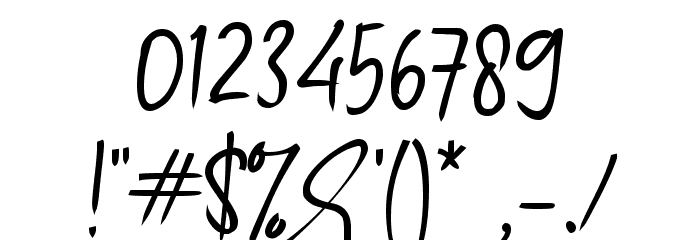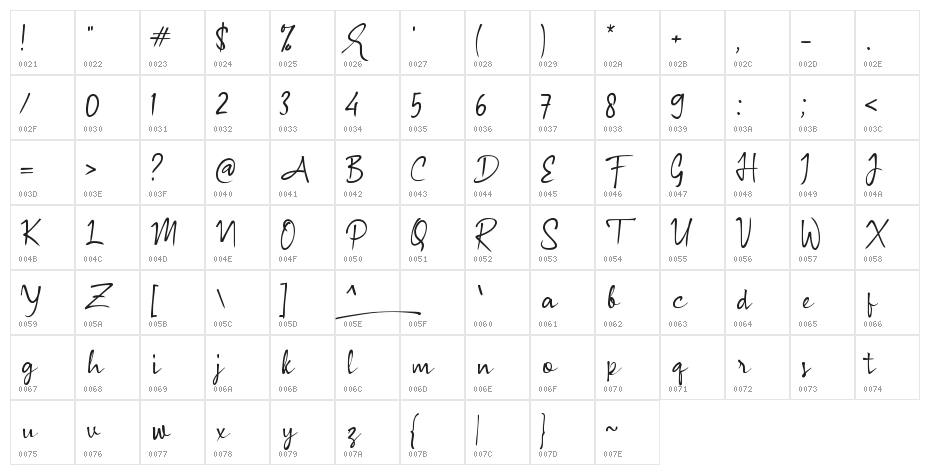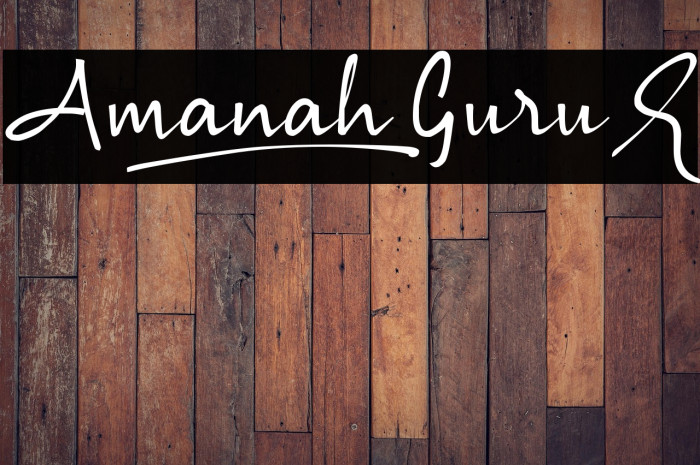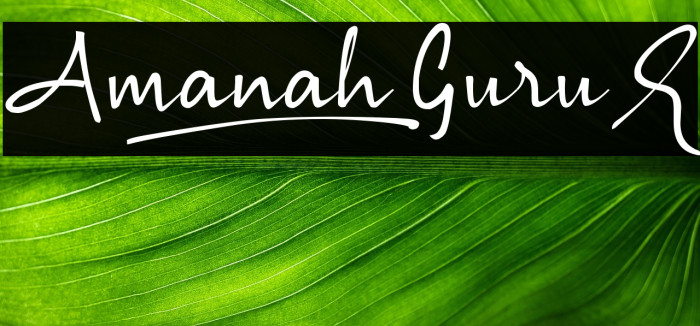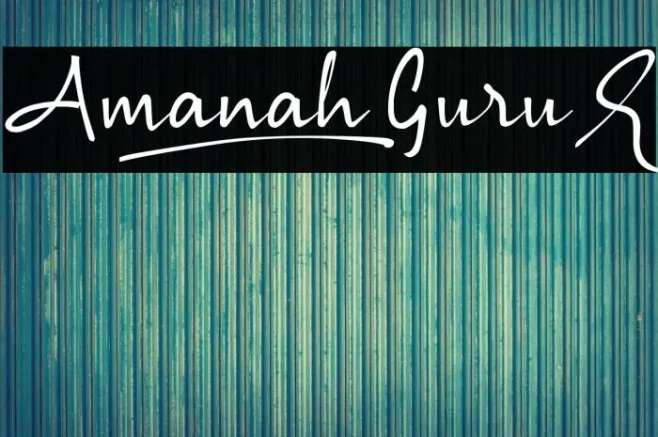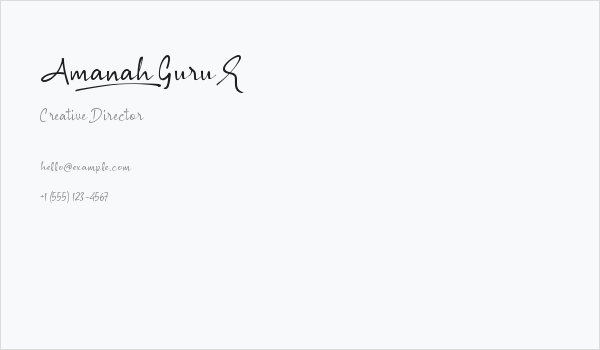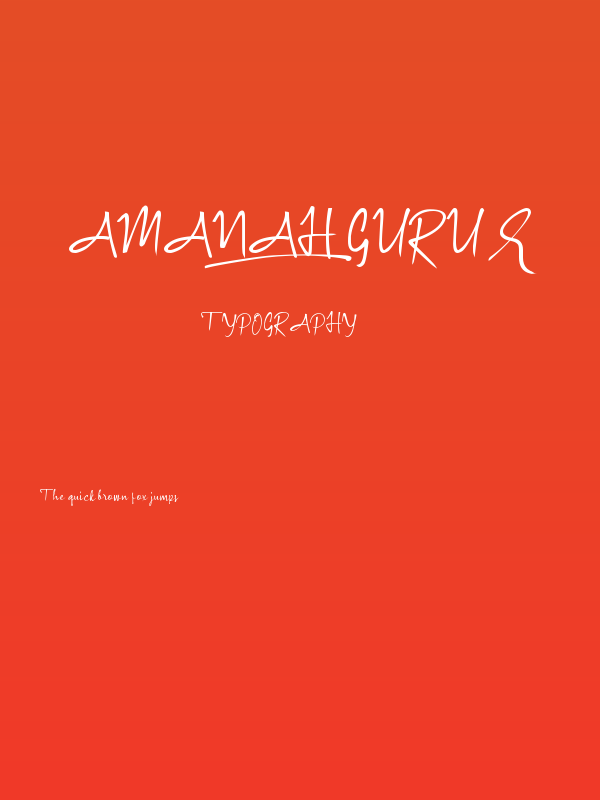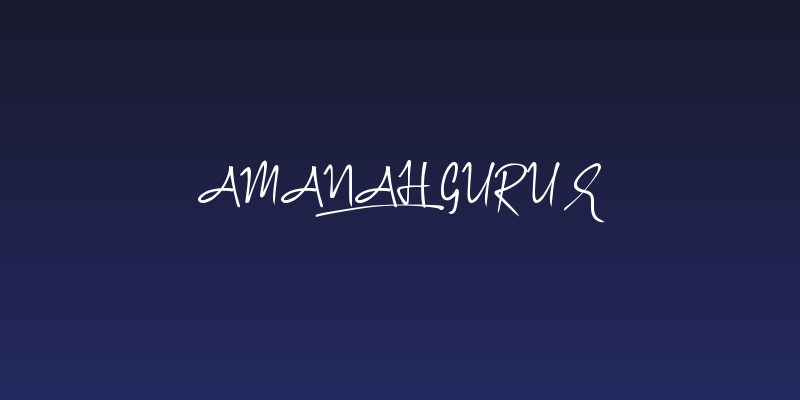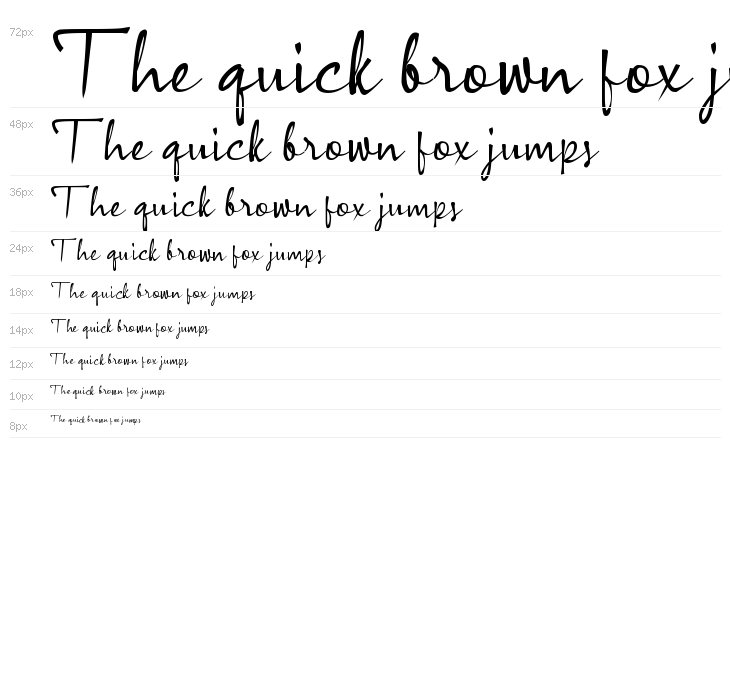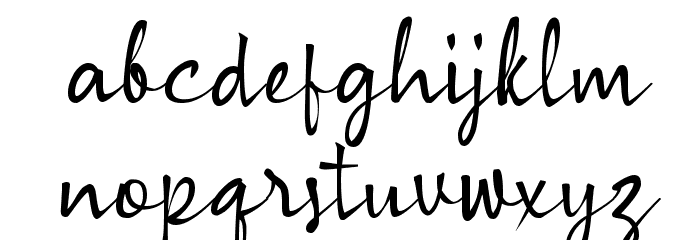
Amanah_Guru & Font
Amanah_Guru & Description
This font exhibits a dynamic and flowing script style, characterized by its elegant and fluid strokes. The uppercase letters are bold and slightly slanted, giving a sense of movement and energy. The lowercase letters maintain a consistent flow, with smooth connections between characters, enhancing its cursive nature. The numerals are distinct and maintain the same fluidity, ensuring readability. Special characters are creatively integrated, matching the overall aesthetic. This font's design is both artistic and functional, making it suitable for a variety of creative applications.
| Proposed Projects | Ideal for wedding invitations, greeting cards, branding projects, and artistic posters. |